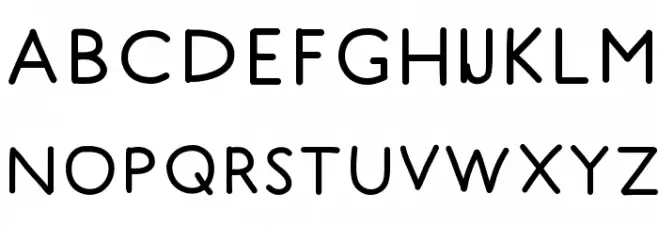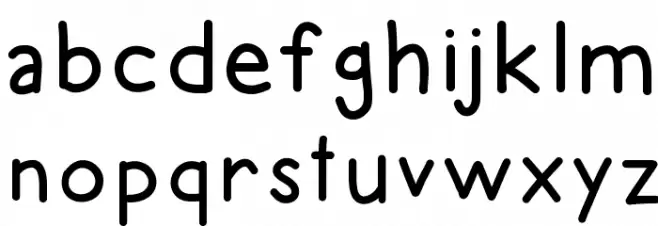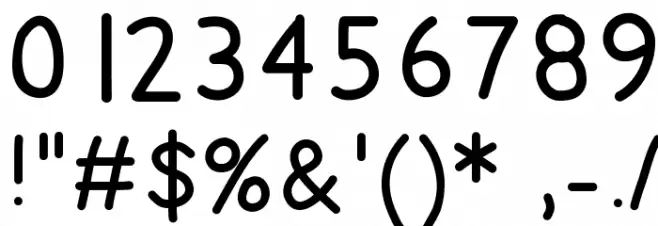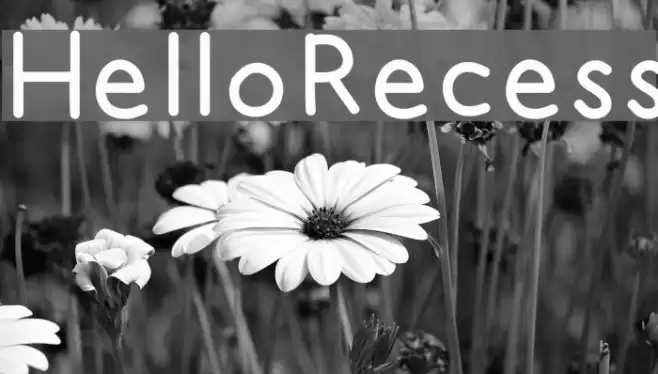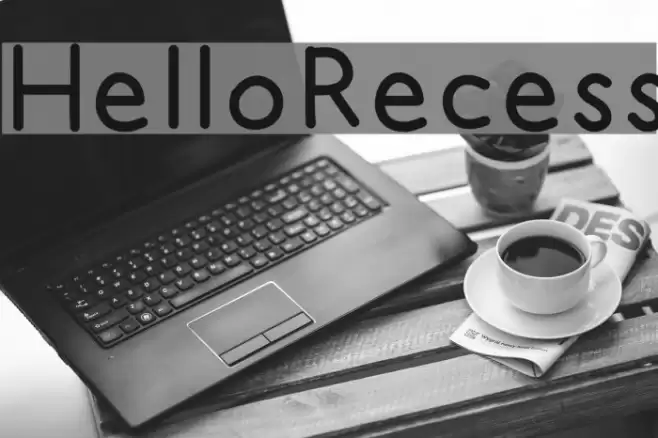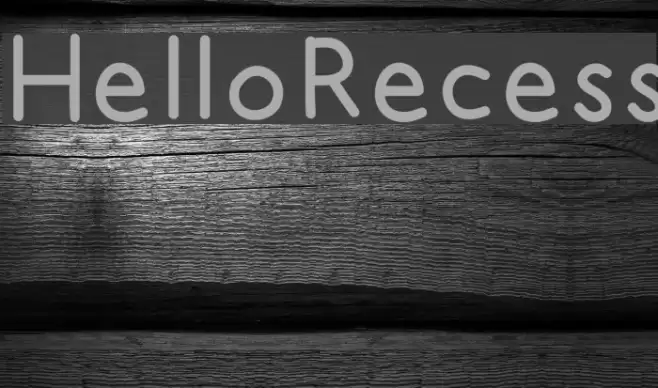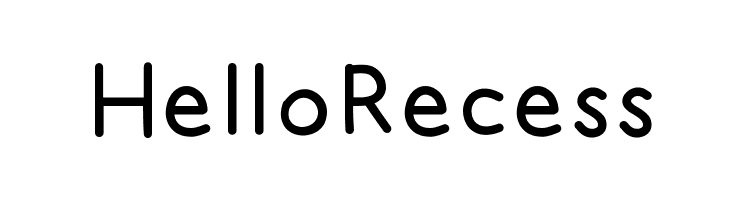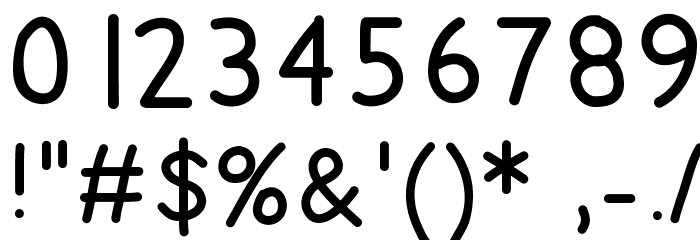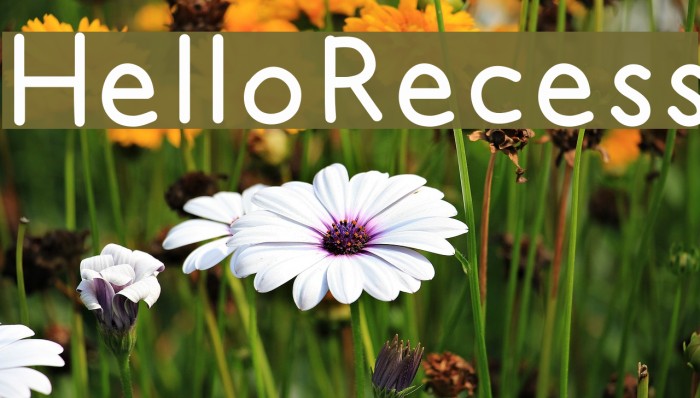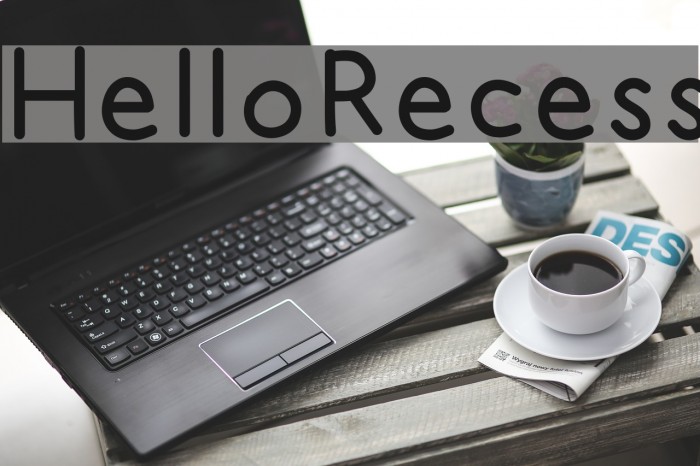
HelloRecess
This font features a playful and rounded design, characterized by its smooth curves and friendly appearance. The letters are evenly spaced, providing a clean and approachable look. The uppercase and lowercase letters maintain a consistent style, with rounded edges and a uniform stroke width. The numerals and special characters follow the same design principles, ensuring a cohesive overall appearance. This font is versatile, suitable for both digital and print media, and can be used to convey a sense of warmth and approachability.
A playful, rounded font with smooth curves and a friendly appearance.
- Proposed Projects: Ideal for children's books, educational materials, playful branding, and casual invitations.
- Use Case: Headlines, Logos, Informal Text